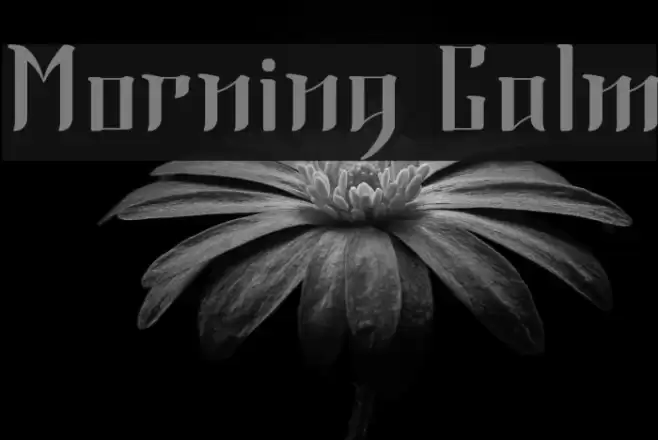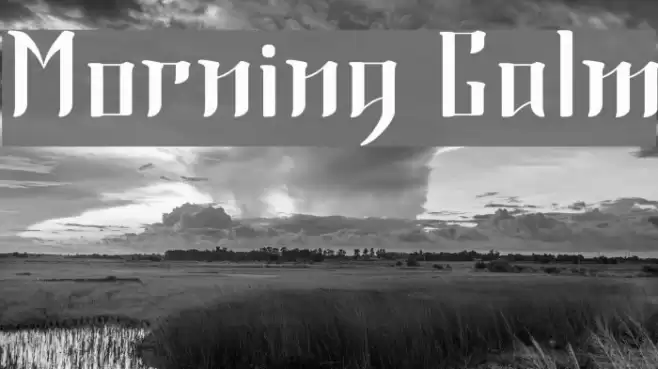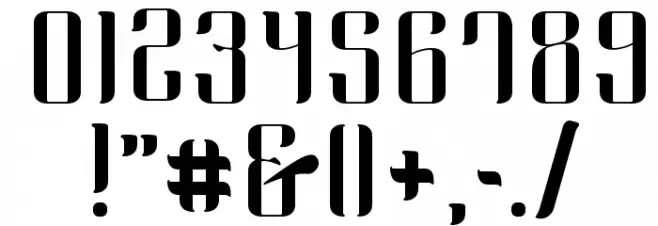
Morning Calm Font
Morning Calm Description
This font features a striking and bold design with a distinct Gothic influence. The characters are sharply defined with angular edges and a dramatic flair, reminiscent of medieval script. The uppercase letters are particularly commanding, with strong vertical lines and pointed serifs that give them a sense of authority and tradition. The lowercase letters maintain this aesthetic, offering a cohesive look throughout. Numbers and special characters are equally stylized, ensuring consistency across all text elements. The font's unique style makes it ideal for projects that require a touch of historical or dramatic flair.
A bold, Gothic-inspired font with sharp, angular characters from Uncategorized fonts.
- Proposed Projects: Perfect for medieval-themed designs, book covers, posters, or branding that requires a historical or dramatic touch.
- Overall Style: Vintage